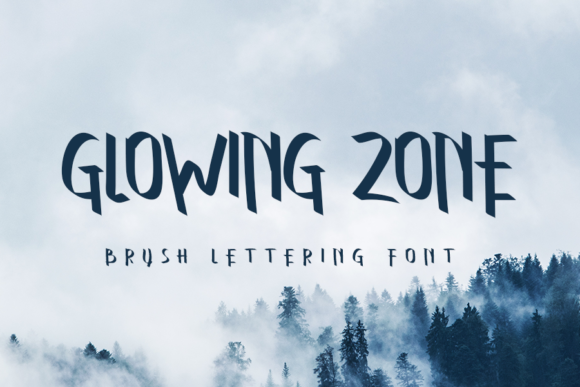
Introducing Glowing Zone Font, the radiant script font that will illuminate your designs with its captivating charm. This stunning font, meticulously crafted by the talented Inermedia STUDIO, is a visual masterpiece that will leave you spellbound.
Prepare to be mesmerized by Glowing Zone's enchanting strokes, reminiscent of a skilled artist's graceful brushwork. Its relaxed style exudes a sense of effortless elegance, making it the perfect choice for adding a touch of sophistication to any project.
With Glowing Zone, your designs will radiate with a vibrant energy that is sure to captivate and enchant. Let your imagination soar as you explore the endless possibilities of this versatile font. Whether you're creating eye-catching display ads, crafting heartfelt invitations, or designing whimsical posters, Glowing Zone will elevate your work to new heights.
Step into the world of Glowing Zone and unlock a realm of creative possibilities. Let this extraordinary font illuminate your designs with its radiant glow and leave an unforgettable impression on your audience. Dive into a world of beauty and let Glowing Zone transform your creative vision into a breathtaking reality.